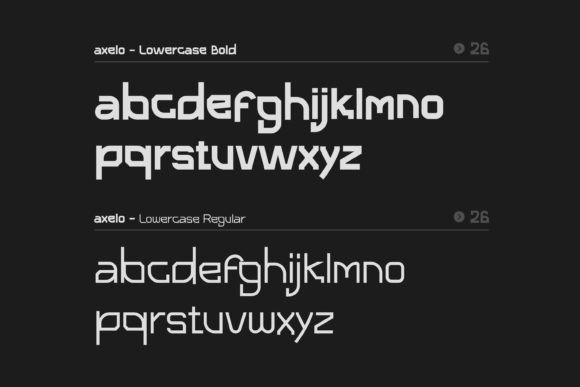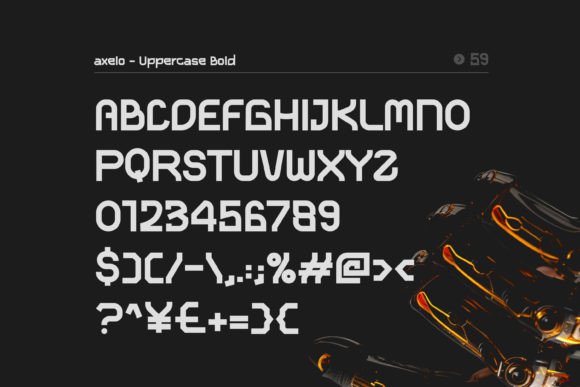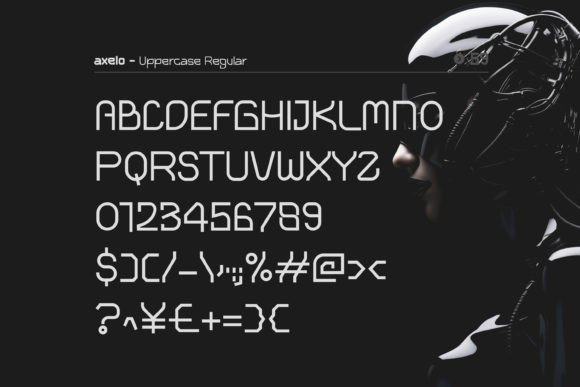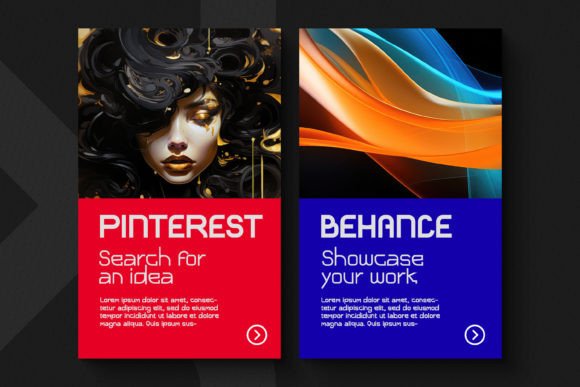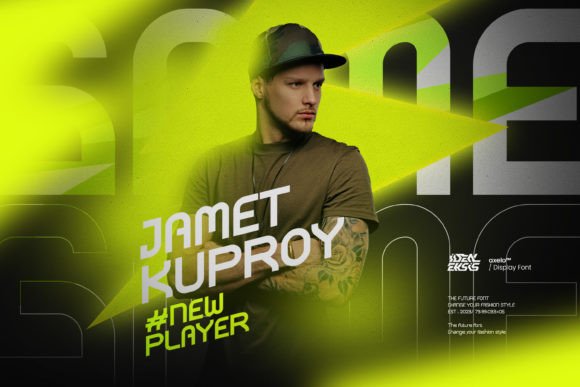
Unlock the Future of Typography
Have you ever been working on a design project, and suddenly, you’re struck with the perfect idea – but the font just isn’t quite right? You envision a sleek, modern aesthetic that screams “cutting-edge” and “innovative.” That’s where Axelo Font comes in – a game-changing display font designed to elevate your typography and transport your audience to a futuristic world.
With its clean lines and futuristic vibe, Axelo Font is perfect for technology-related designs, sci-fi themes, or any creative endeavor that calls for a touch of forward-looking style. Whether you’re a seasoned designer or just starting out, Axelo Font offers a valuable tool to add a touch of sophistication and modernity to your projects. By incorporating Axelo Font into your design, you’ll be able to take your audience on a journey into the future, one pixel at a time.
Axelo Font Key Features
- Font Family: Axelo Font is a sans-serif font family designed for modern and clean typography.
- Size: Axelo Font comes in 6 weights, ranging from Light to Black, allowing for a wide range of typographic expressions.
- Unique Characteristics: Axelo Font features a geometric and modern design, with clean lines, rounded corners, and a friendly feel, making it suitable for digital and print media.
- Character Set: Axelo Font includes a comprehensive character set, supporting multiple languages and scripts, including Latin, Cyrillic, and Greek alphabets.
Review of Axelo Font
After using Axelo Font for a while, I must say it has its charm. ✨ The font has a clean and modern feel, making it perfect for digital interfaces and user-friendly designs. The font is highly legible, even at smaller sizes, which is a huge plus for user experience.
One of the things that I like about Axelo Font is its versatility. It comes in a range of weights, from light to bold, allowing designers to experiment with different styles and emphasis. Additionally, the font has a modern and sleek aesthetic that makes it suitable for various design projects, from branding to web development.
Limits of Axelo Font
While Axelo Font has its strengths, it also has some limitations. ⚠️ The font may not be the best choice for traditional or classic designs, as it has a very modern and digital feel. Additionally, some users may find the font too minimalist or lacking in character, which can be a drawback for certain design projects.
In conclusion, Axelo Font is a solid choice for designers who are looking for a clean and modern font. While it may not be perfect for every design project, it is a versatile and highly legible font that can be used in a variety of contexts.
- Highly legible even at smaller sizes
- Clean and modern aesthetic
- Range of weights (light to bold)
- Perfect for digital interfaces and user-friendly designs
Tips for Getting the Most Out of Axelo Font
To get the most out of Axelo Font, use it in combination with bold and italic styles to add emphasis to your text. You can also use it in conjunction with other fonts to create a unique and visually appealing design.
Axelo Font is ideal for use in creative and artistic projects, such as graphic design, typography, and branding. It is also suitable for use in digital and print media, such as websites, social media, and advertising materials.